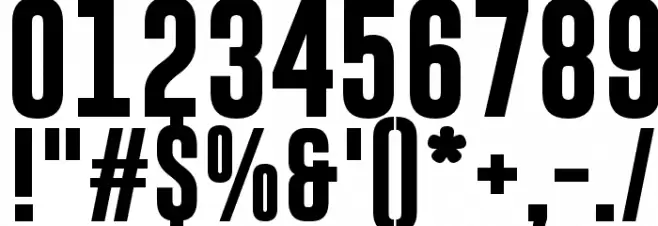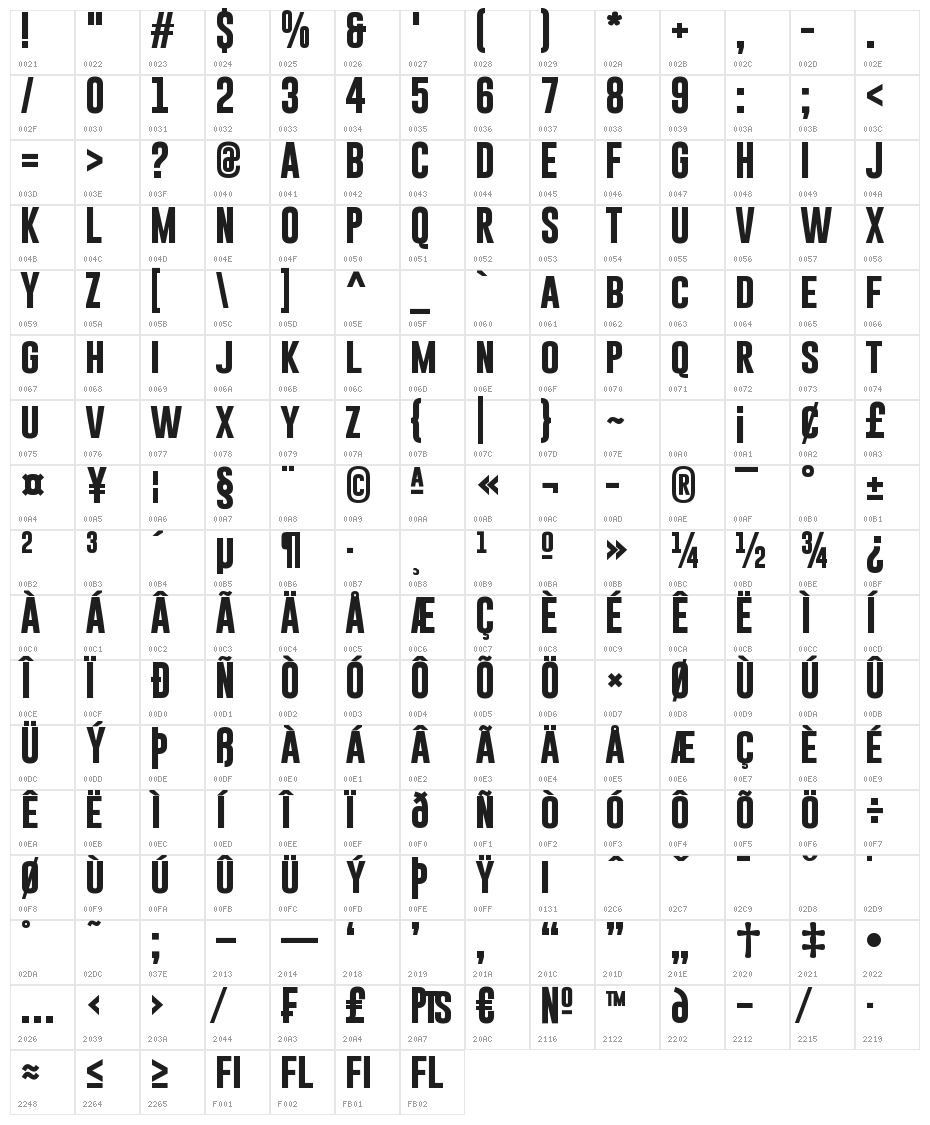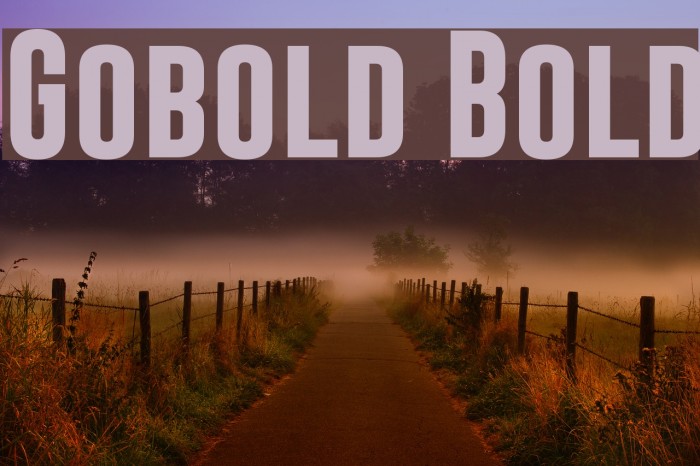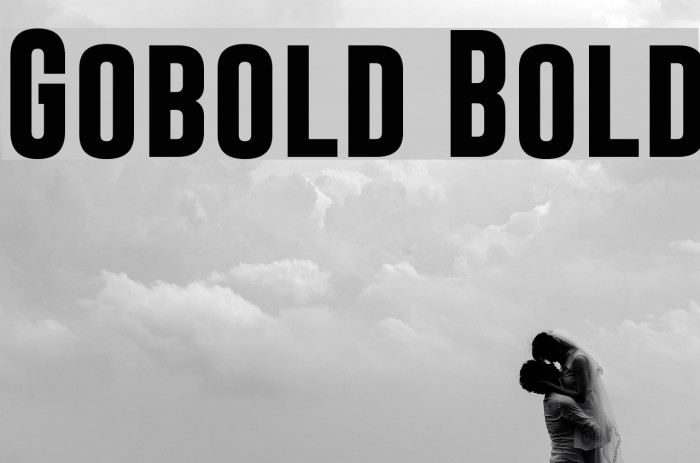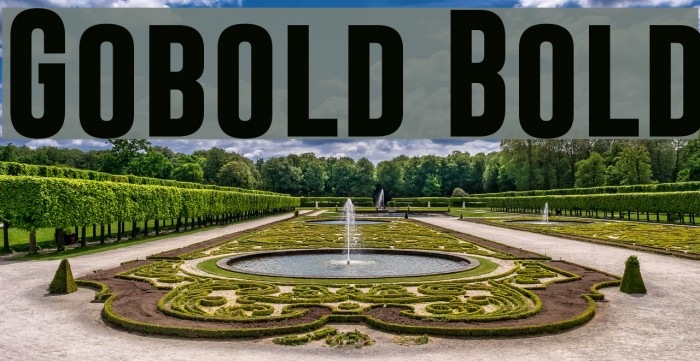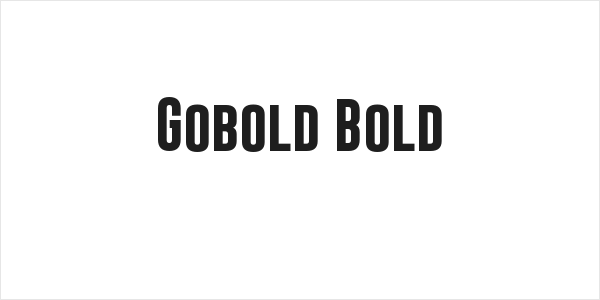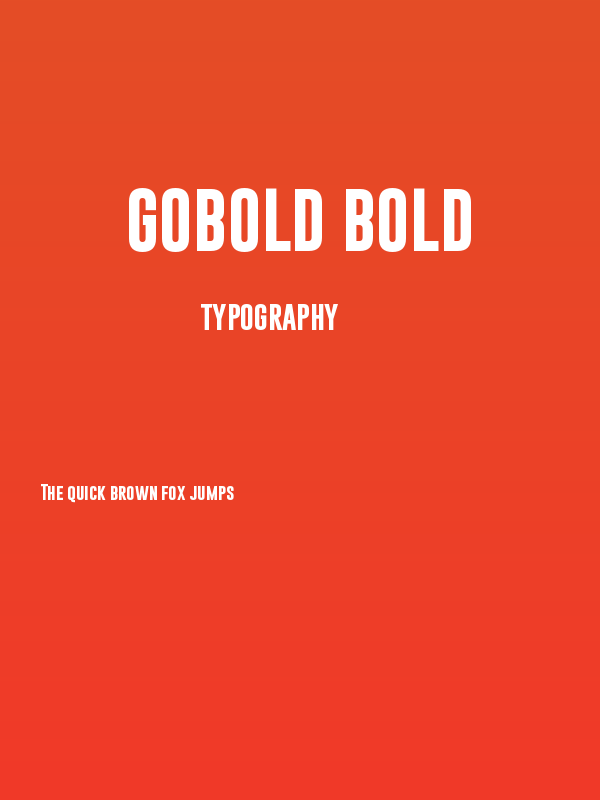
Gobold Bold Font
Gobold Bold Description
This font features a bold and impactful design, characterized by thick, uniform strokes that convey strength and modernity. The uppercase and lowercase letters are well-proportioned, with a consistent height and width that ensures readability. The numbers and special characters maintain the same boldness, making them stand out prominently. The overall design is clean and straightforward, with no unnecessary embellishments, making it suitable for a variety of applications where clarity and emphasis are essential.
| Proposed Projects | Ideal for headlines, posters, branding, and advertising where a strong, modern presence is needed. |